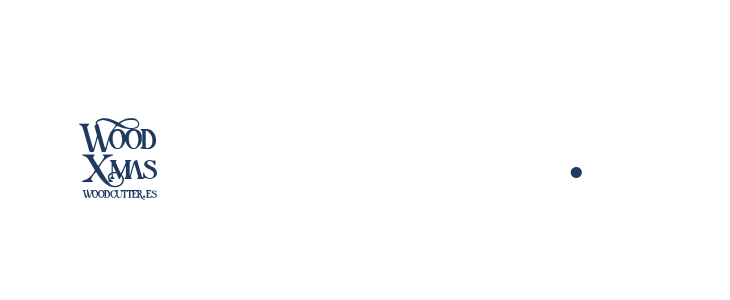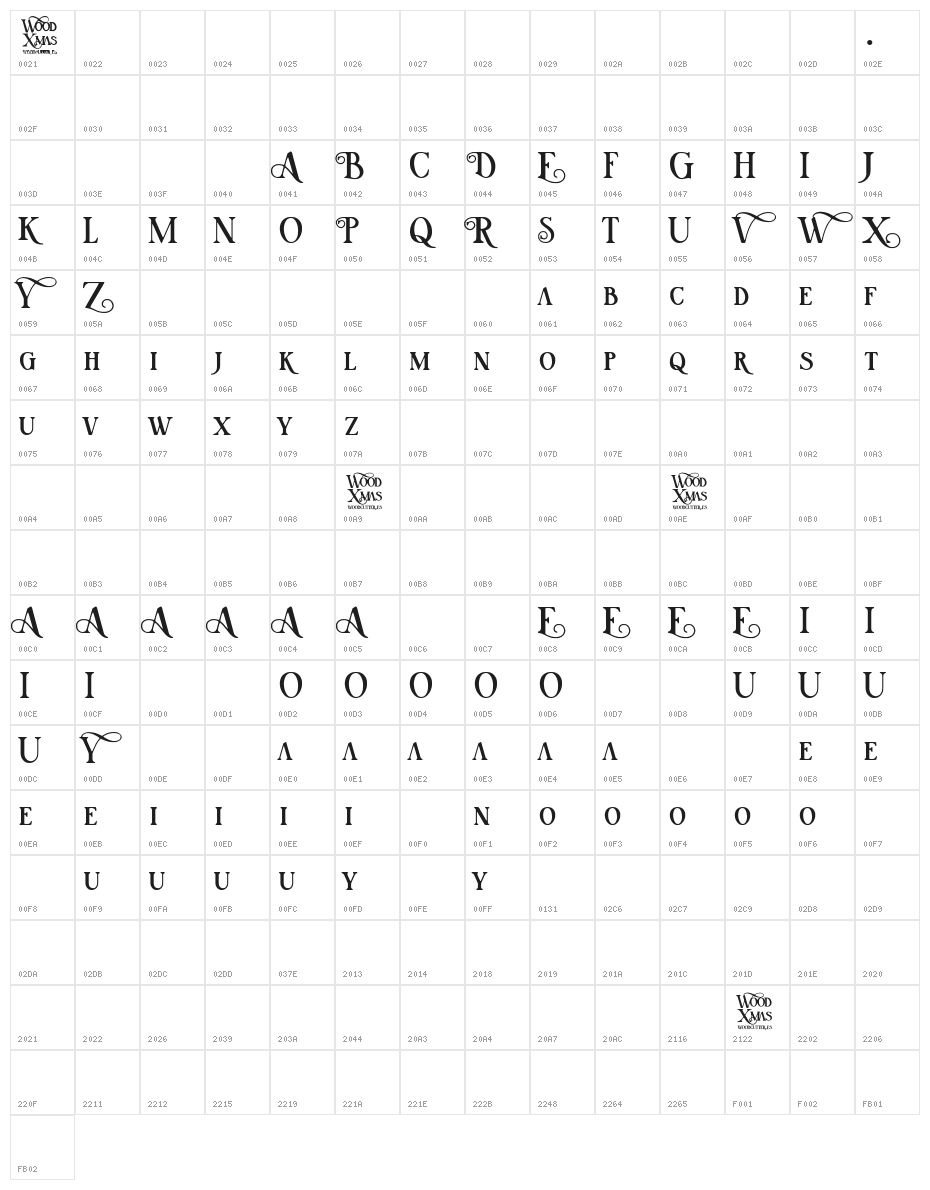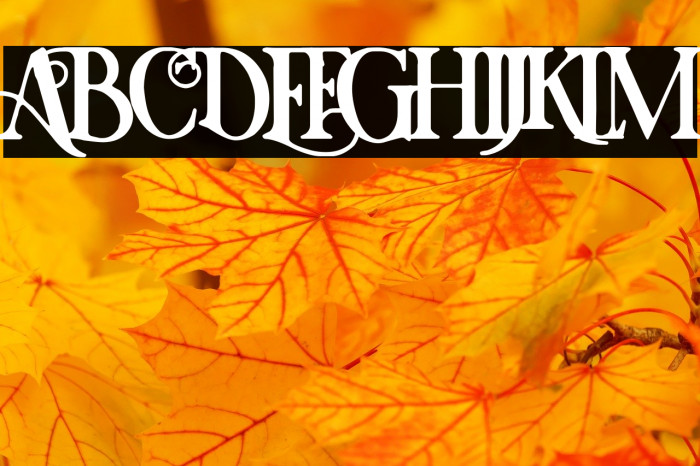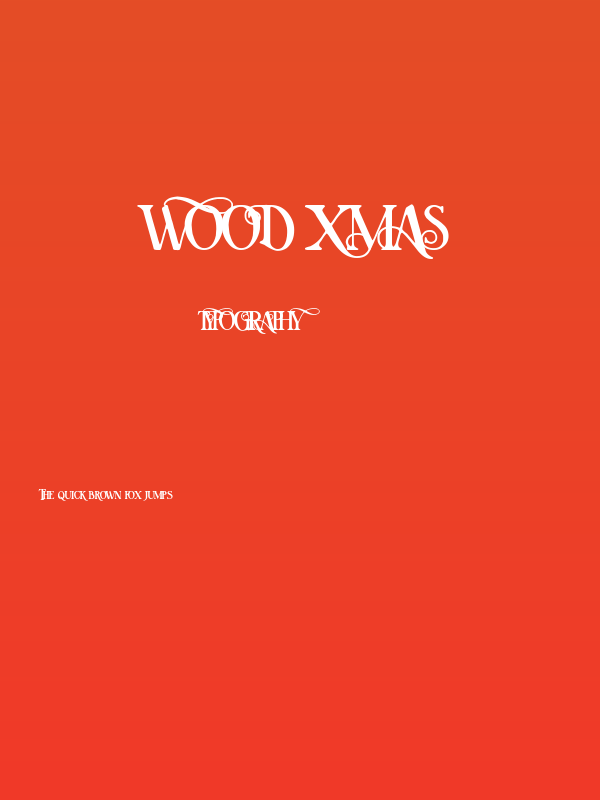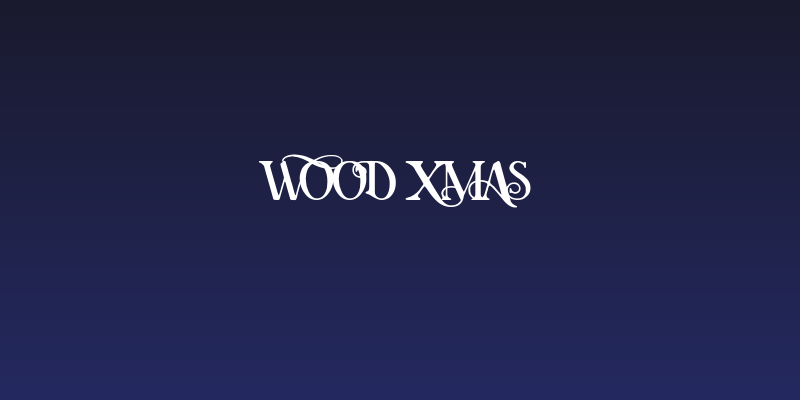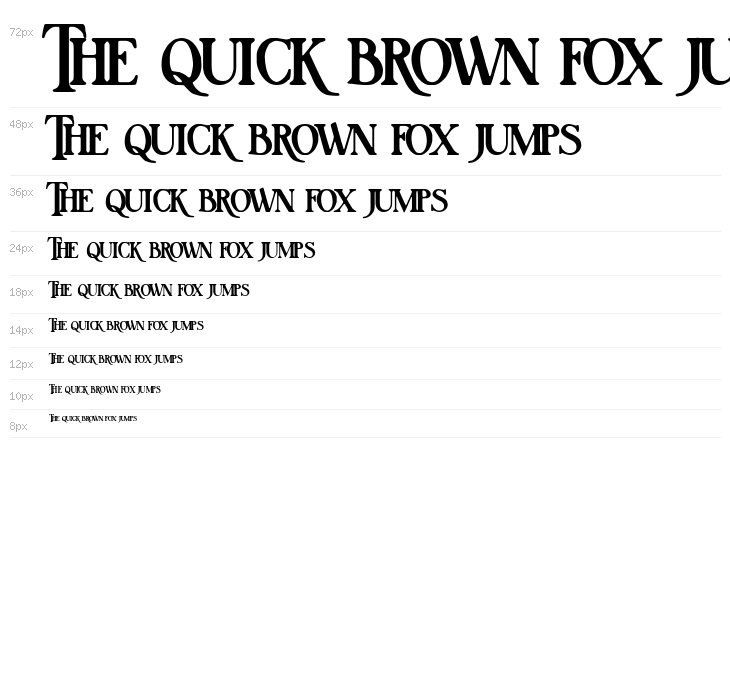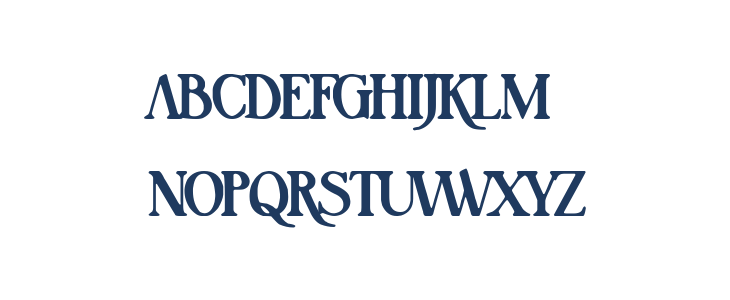
Wood Xmas Font
Wood Xmas Description
This font features an intricate and decorative style, characterized by its elaborate swirls and flourishes that extend from the main strokes of the letters. The uppercase letters are particularly ornate, with some characters incorporating unique embellishments that give a festive and whimsical feel. The lowercase letters maintain a more straightforward design but still carry a touch of the decorative elements seen in the uppercase set. The overall appearance is bold and eye-catching, making it suitable for designs that require a strong visual impact. The font's style evokes a sense of elegance and sophistication, perfect for holiday-themed projects or any design needing a touch of classic charm.
| Use Case | Headlines, Logos, Decorative text |
| Proposed Projects | Holiday cards, festive invitations, decorative posters, branding for seasonal products. |